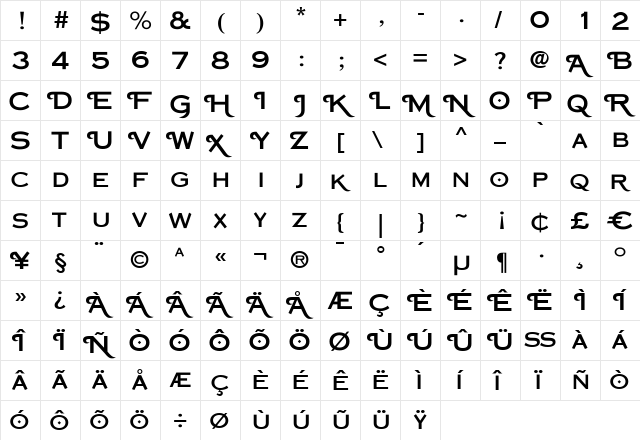
Copperplate Classic Sans Swash Regular
Design Context for Copperplate Classic Sans Swash Typeface
Copperplate Classic Sans Swash has the warm character of retro typography — evoking diners, record sleeves, and the golden age of print advertising.
Font Pairing: Combine Copperplate Classic Sans Swash with a simple slab or neutral sans — period-accurate companions reinforce the vintage feel without competing for attention.
Pro Tip: Use Copperplate Classic Sans Swash for headlines and pull quotes rather than body copy — its personality is best appreciated in short, focused bursts.